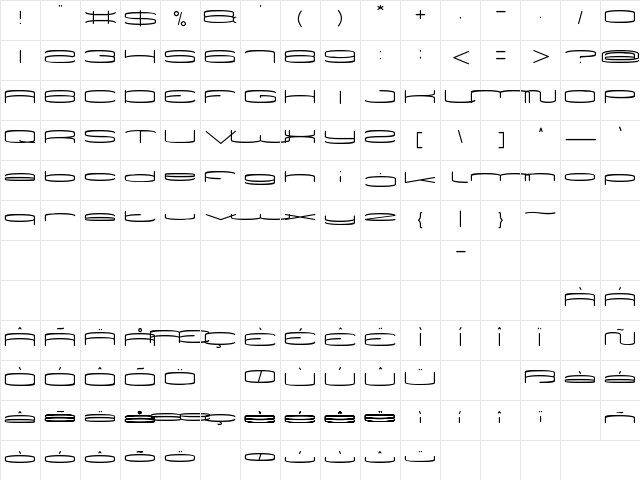
VICE VERSA Regular
Design Context for VICE VERSA Typeface
VICE VERSA is a composed and adaptable typeface that performs quietly and consistently across a wide range of design contexts.